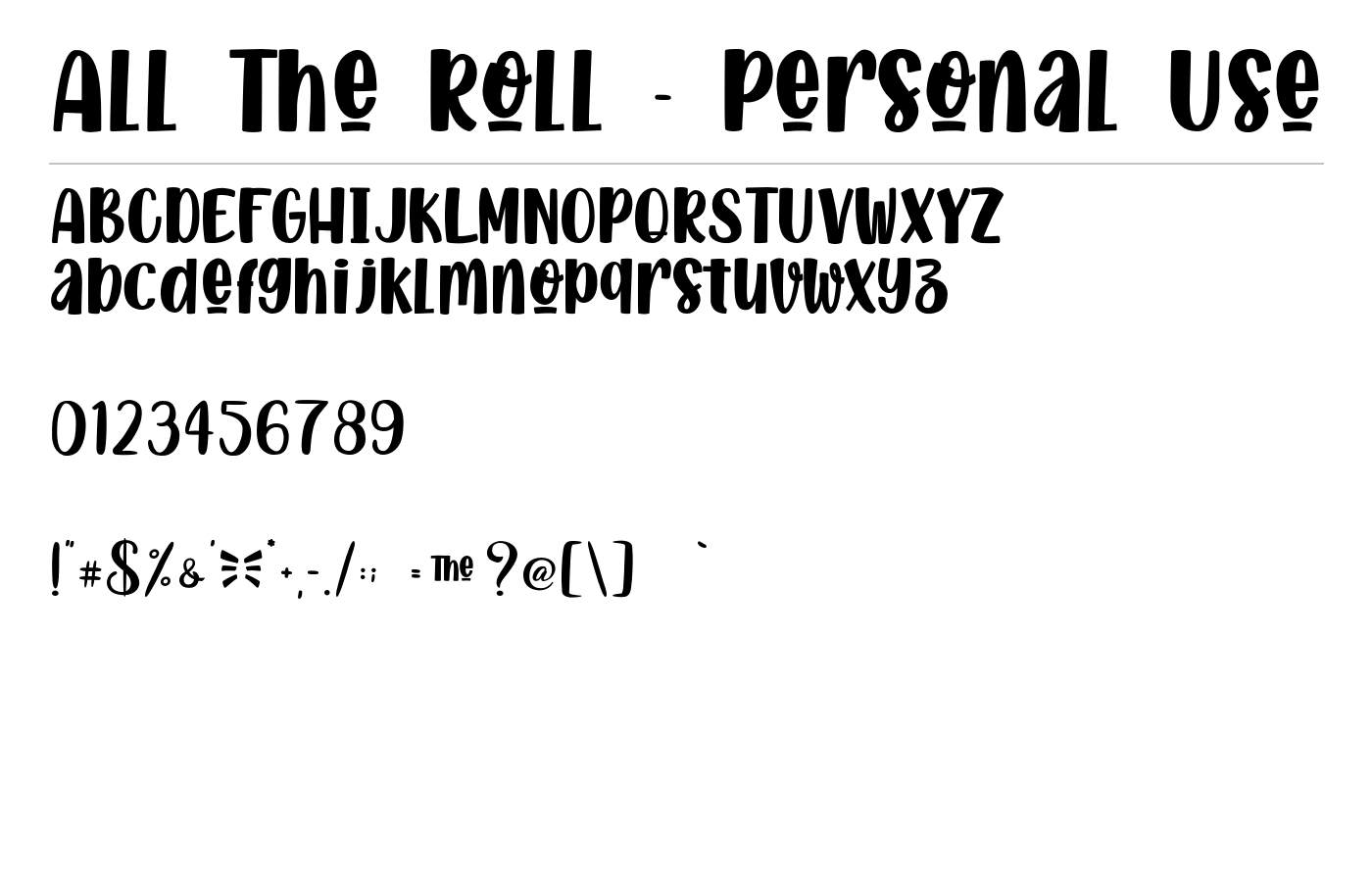
All The Roll is a playful and quirky sans serif font with a hand-drawn feel, featuring uneven stroke widths and whimsical letter shapes that give it a friendly and informal personality. Its tall x-height and slightly condensed forms make it eye-catching and suitable for creative headlines, logos, and casual branding where a fun and approachable vibe is desired. This font works well in projects that need a unique, lively touch without sacrificing readability.
All The Roll - Personal Use Font